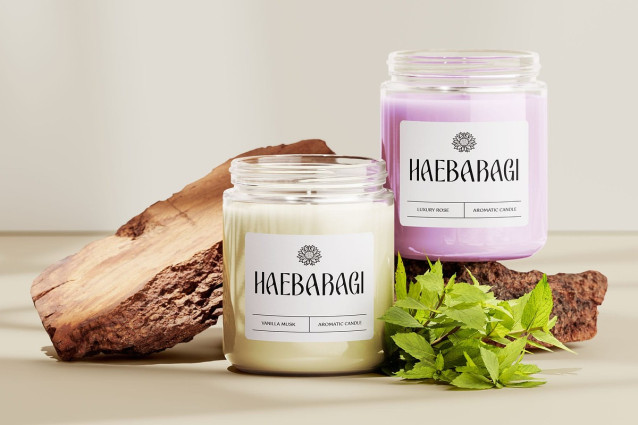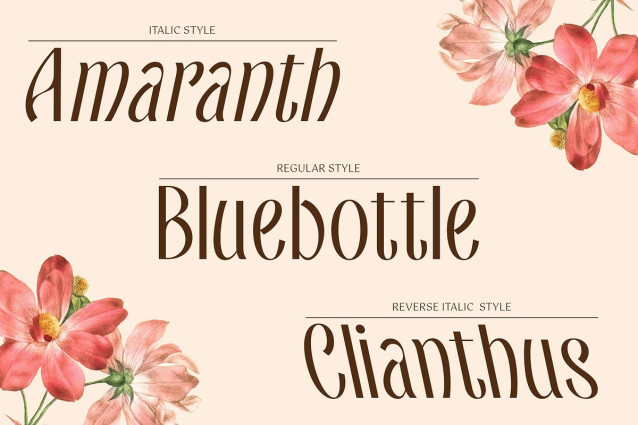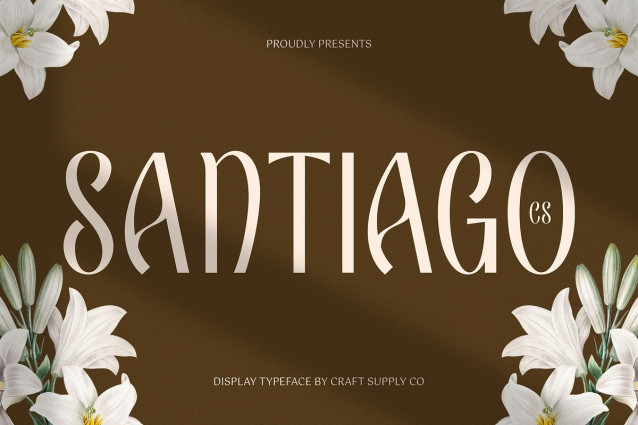
CS Santiago Font
CS Santiago Font is a modern sans-serif display font that exudes refined simplicity and sophistication. Designed with clean lines, smooth curves, and balanced proportions, it achieves a minimalist yet striking aesthetic. Its understated elegance makes it a perfect choice for high-end branding and premium design projects.
Effortless Beauty & Visual Harmony With its precisely crafted letterforms, CS Santiago offers a harmonious balance between modern structure and subtle charm. Its sleek and polished appearance enhances luxury packaging, fashion editorials, and digital media, delivering a graceful, timeless presence.
Versatile for High-End Design Ideal for branding, editorial layouts, invitations, and advertising, CS Santiago adds a touch of modern refinement to any project. Whether used for bold headlines or delicate typography, it maintains visual clarity and sophistication, ensuring an aesthetic impact.
Elevate Your Design with a Modern Sensibility CS Santiago blends minimalist aesthetics with contemporary appeal, making it the perfect font for those seeking a sleek, stylish, and effortlessly elegant typeface. Let your designs shine with its sophisticated and graceful presence.